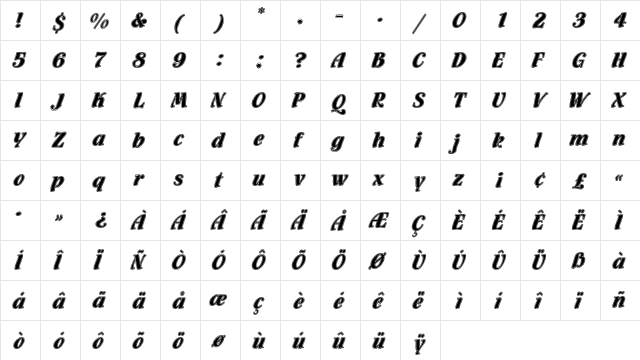
FlamencoInlineEF Regular
Design Context for FlamencoInlineEF Typeface
FlamencoInlineEF is built around its visual character rather than neutral utility — its distinctive forms are designed to make an impression at display sizes.
Font Pairing: Pair with a clean neutral sans-serif for body copy to let FlamencoInlineEF's character lead without overwhelming the composition.
Pro Tip: Treat FlamencoInlineEF as the centrepiece of your typographic hierarchy. One strong heading set in a decorative face can carry an entire layout.